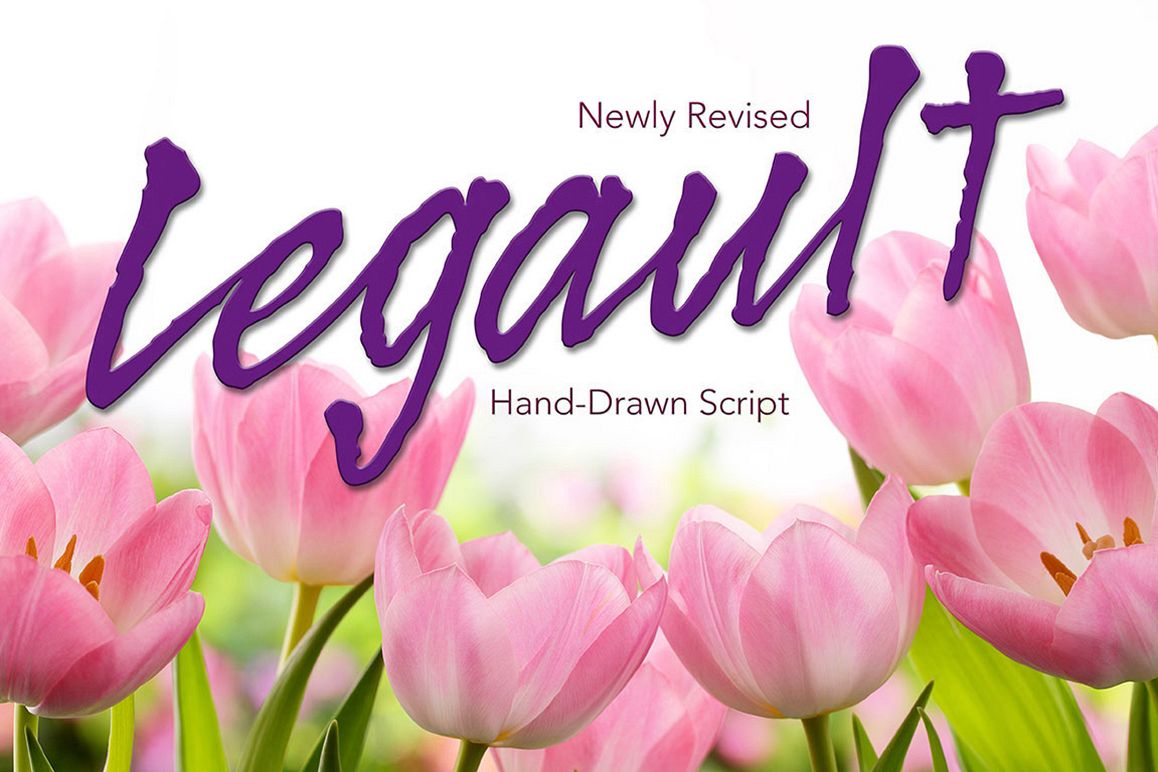
Legault Regular Hand-Drawn Font
Great readability and can be used for: logos, callouts and headlines for advertising, wedding invitations, t-shirts, signage, scrape booking, posters, badges etc.
Legault has great readability and is a modern hand-drawn script font. Two font files OTF and TTF with (Latin-1 Supplement) ÀÁÂÃÄÅÆÇÈÉÊËÌÍÎÏÝ ÑÒÓÔÕÖØŒÙÚÛÜ àáâãäåæçèéêëìíîïñòóôõöðøœùúûüýÿ.